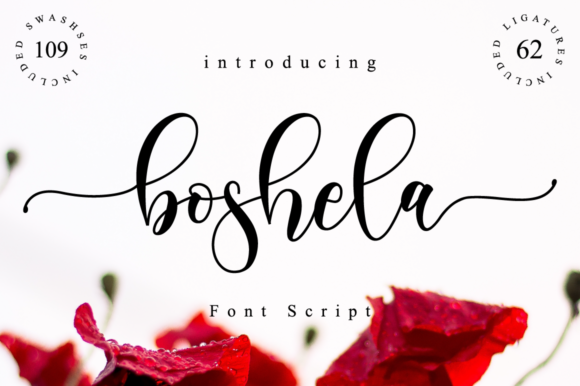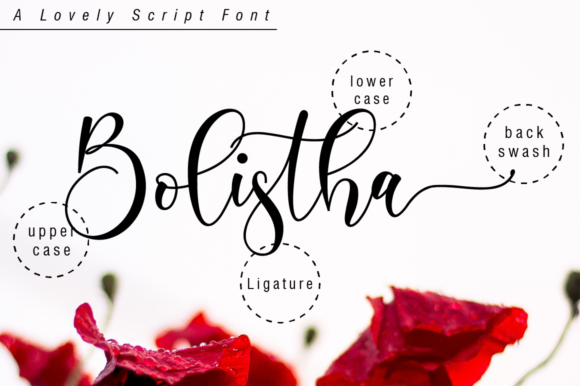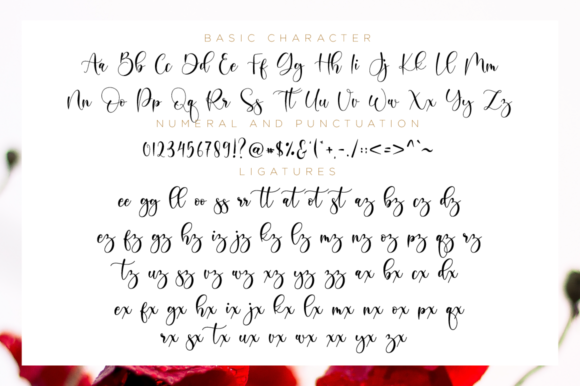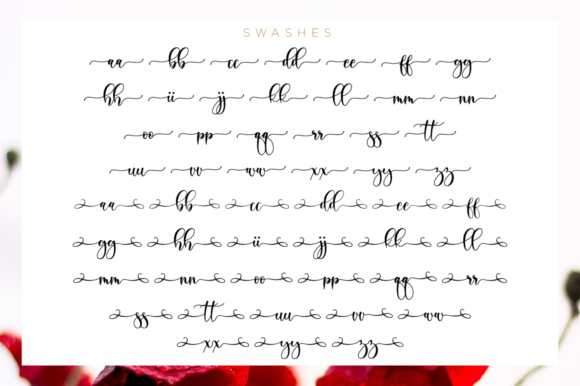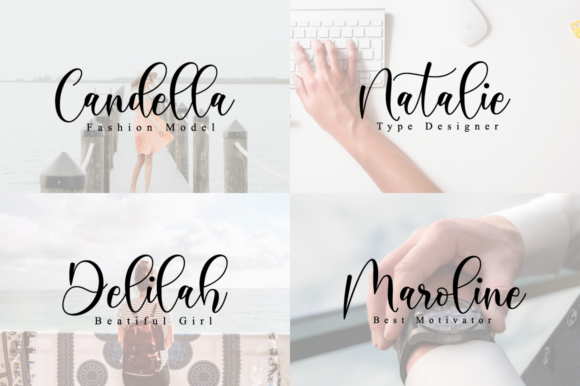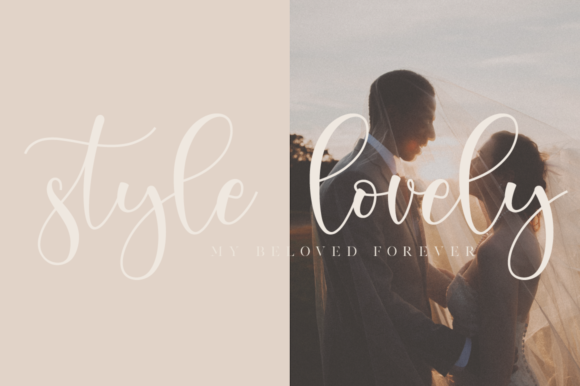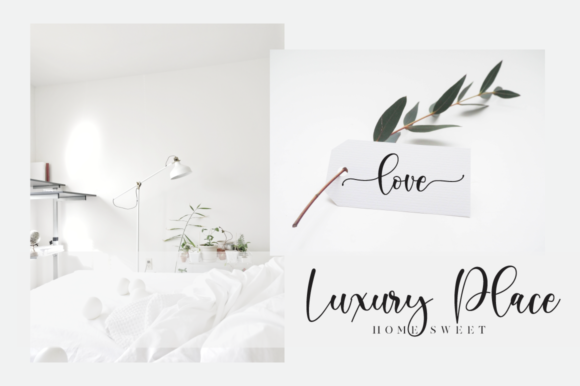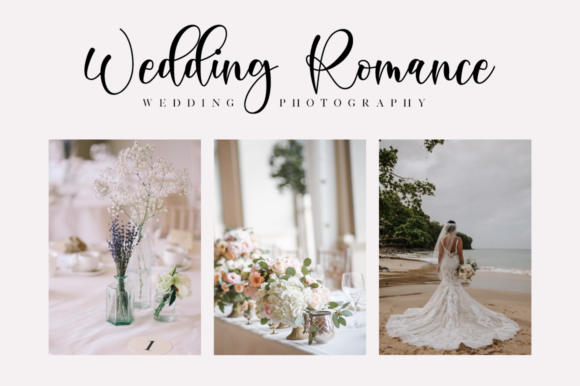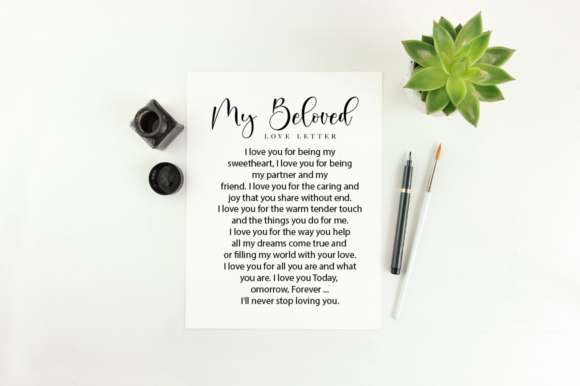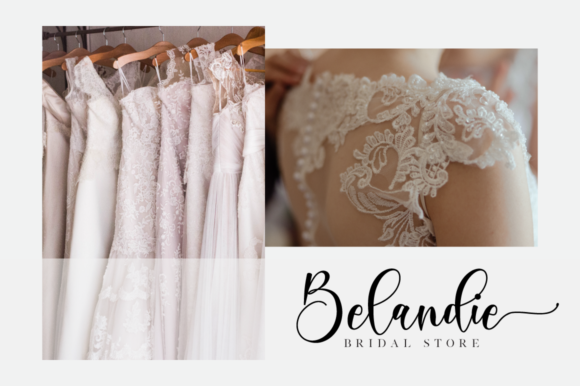
HomeScript FontsBoshela Script Font Script Fonts Boshela Script Font FacebookXPinterestWhatsApp Boshela Script Font Poster 2 Boshela Script Font Poster 3 Boshela Script Font Poster 4 Boshela Script Font Poster 5 Boshela Script Font Poster 6 Boshela Script Font Poster 7 Boshela Script Font Poster 8 Boshela Script Font Poster 9 Boshela Script Font Poster 10 Boshela Script Font Poster 11 Boshela Script Font Poster 12 About Boshela Script Font Boshela is a beautiful script font with a classy, elegant, and modern look. Get inspired by its authentic vibe! DOWNLOAD NOW People also explored Gaspo Slab Font Monogram Jupiter Font Hi Sherly Font Butterfly Script Font Zadekah Rhittonga Font Feel My Heart Font Sunflower Font Ooze Louis Robert Font 275 0 TagsBoshela Script Font Previous articleLong Days FontNext articleAudrey & Reynold Font LEAVE A REPLY Cancel reply Comment: Please enter your comment! Name:* Please enter your name here Email:* You have entered an incorrect email address! Please enter your email address here Website: Save my name, email, and website in this browser for the next time I comment. Personal Use Free Pretender Personal Use Free Read more about this font Lover Loves Personal Use Free Read more about this font Consequences Personal Use Free Read more about this font 08 Underground Personal Use Free Read more about this font BLOG Best Fonts for T-Shirt Design – Top 2025 Picks In 2025, t-shirt design has become more than just fashion—it's a form of self-expression. Whether you're... Free Fonts Risk: Why Free Fonts Can Be Dangerous for Designers Free vs Paid Fonts: Why Investing in Premium Fonts Is Worth It To increase your work productivity, choose the most readable fonts.